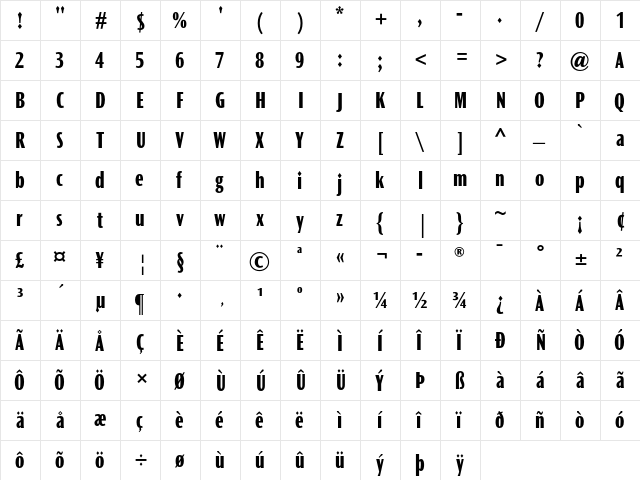
Ocean Sans MT Std XBold Cond Font Preview
Design Context for Ocean Sans MT Std Typeface
Ocean Sans MT Std takes a measured approach to typography — its balanced proportions and neutral character make it a reliable workhorse for both digital and print work. Its bold stroke weight gives it real presence on the page. Its narrow stance lets it pack a punch even in space-constrained designs.
Pro Tip: Pair Ocean Sans MT Std with a font of contrasting weight or personality to build a more expressive typographic hierarchy.